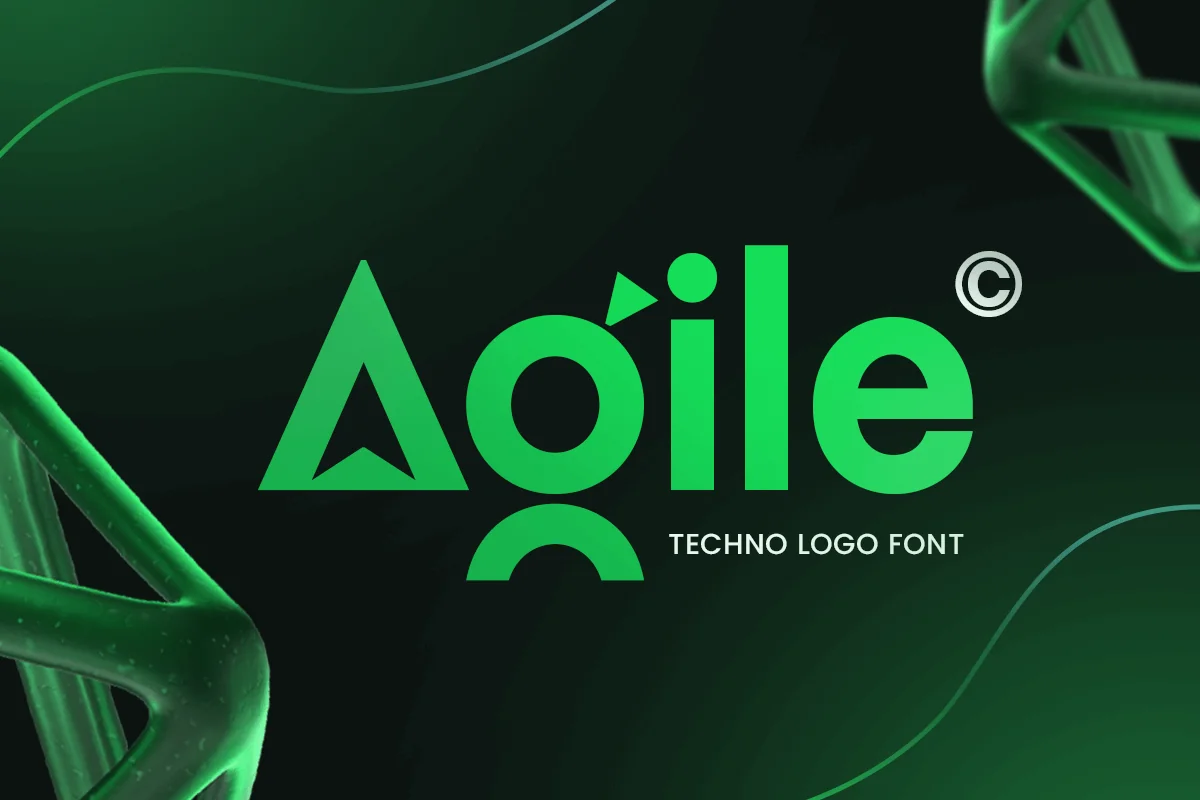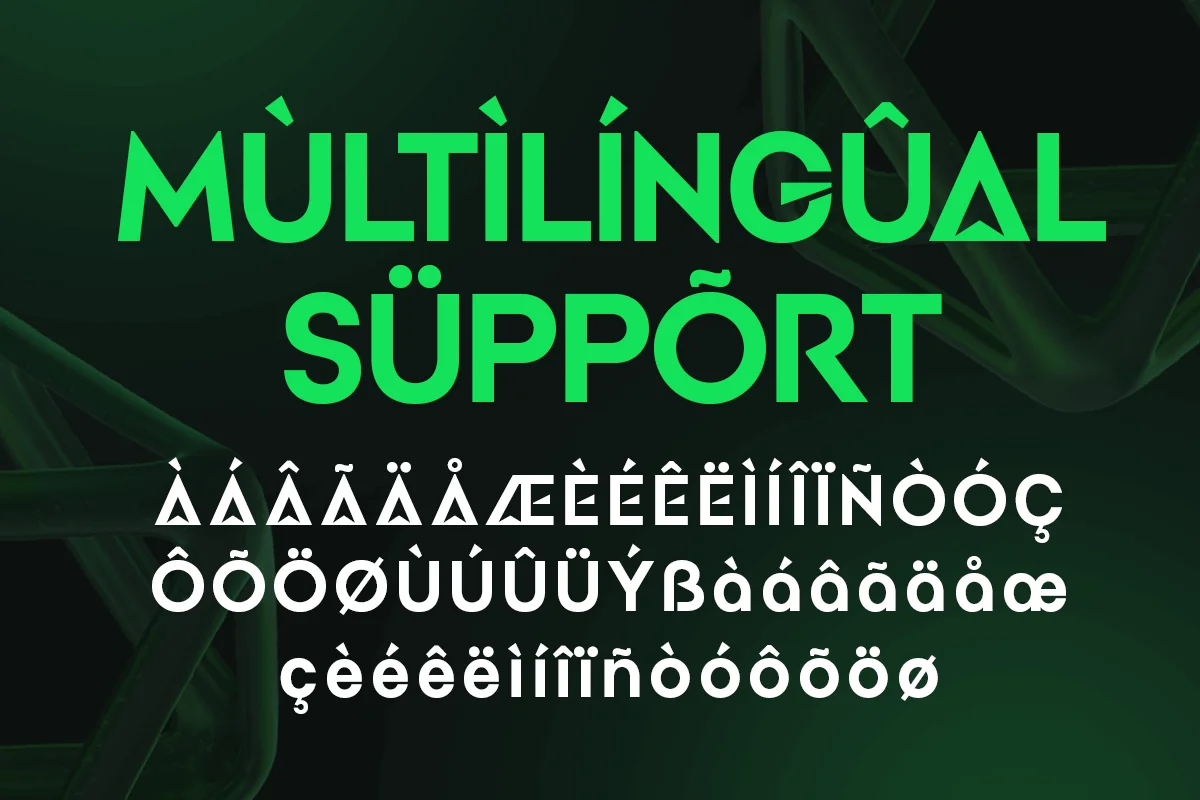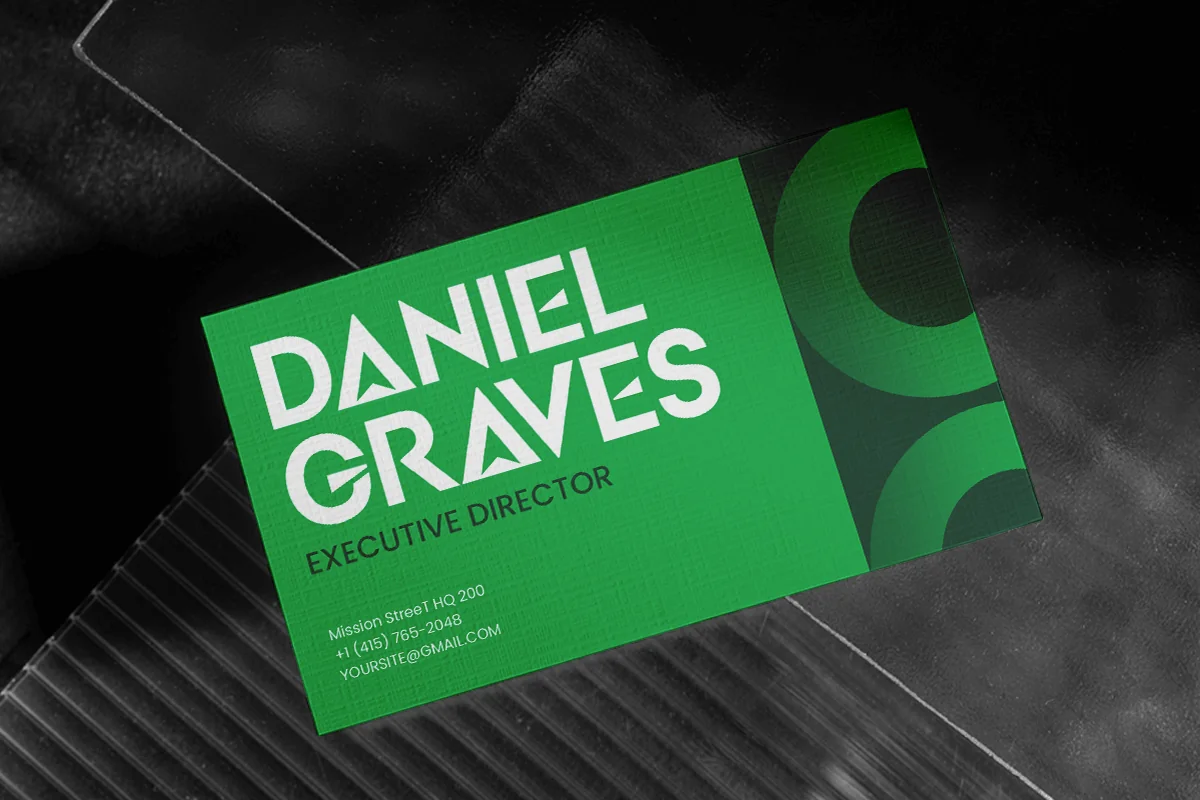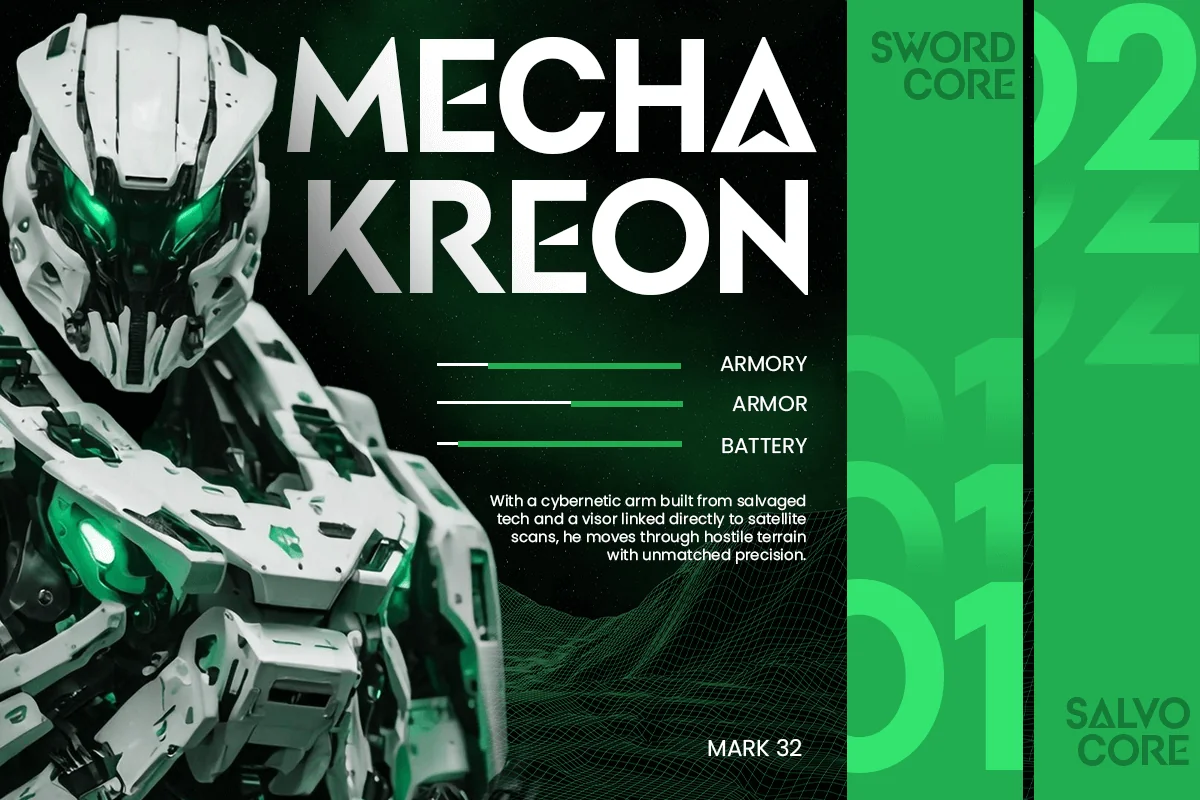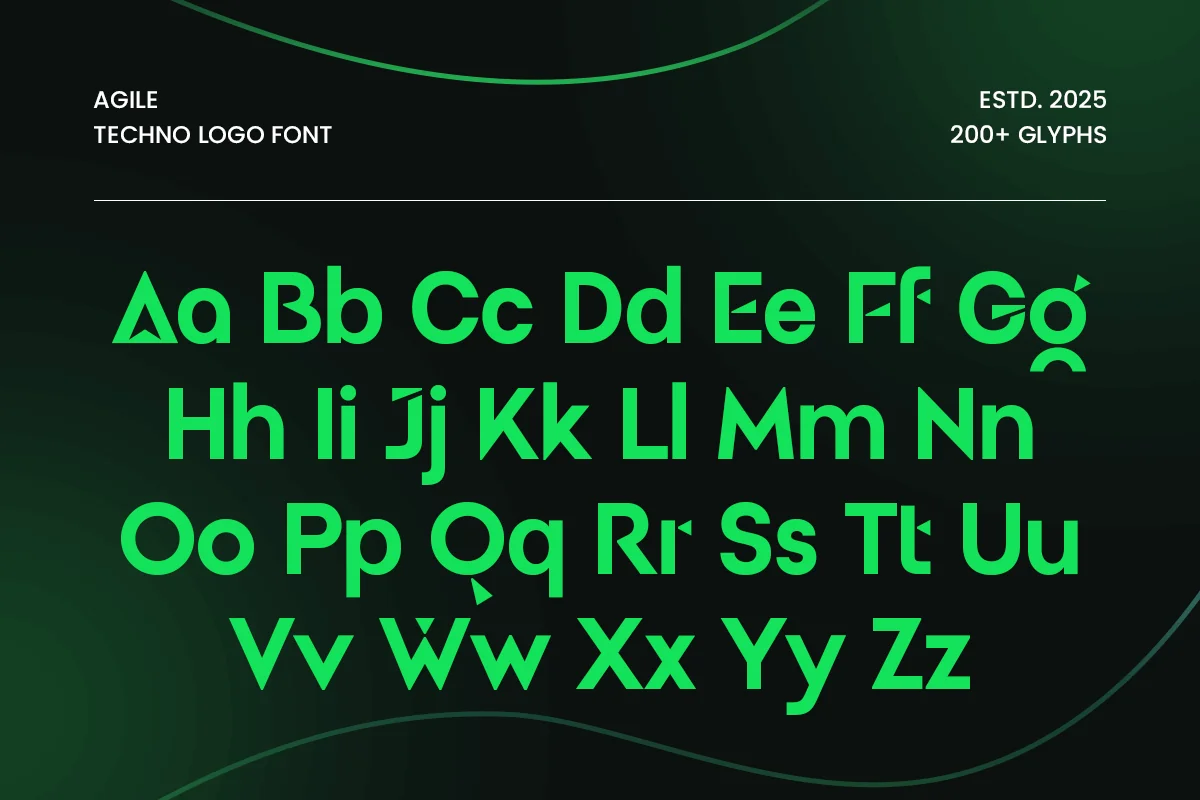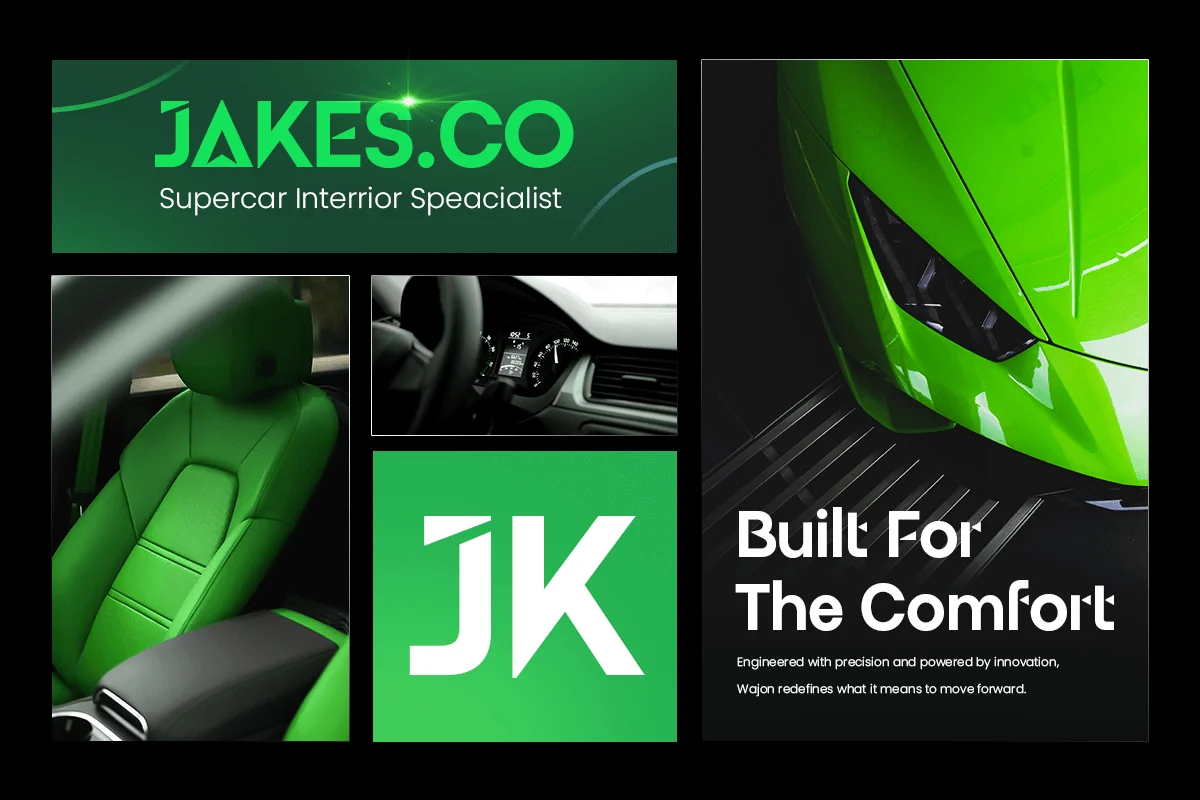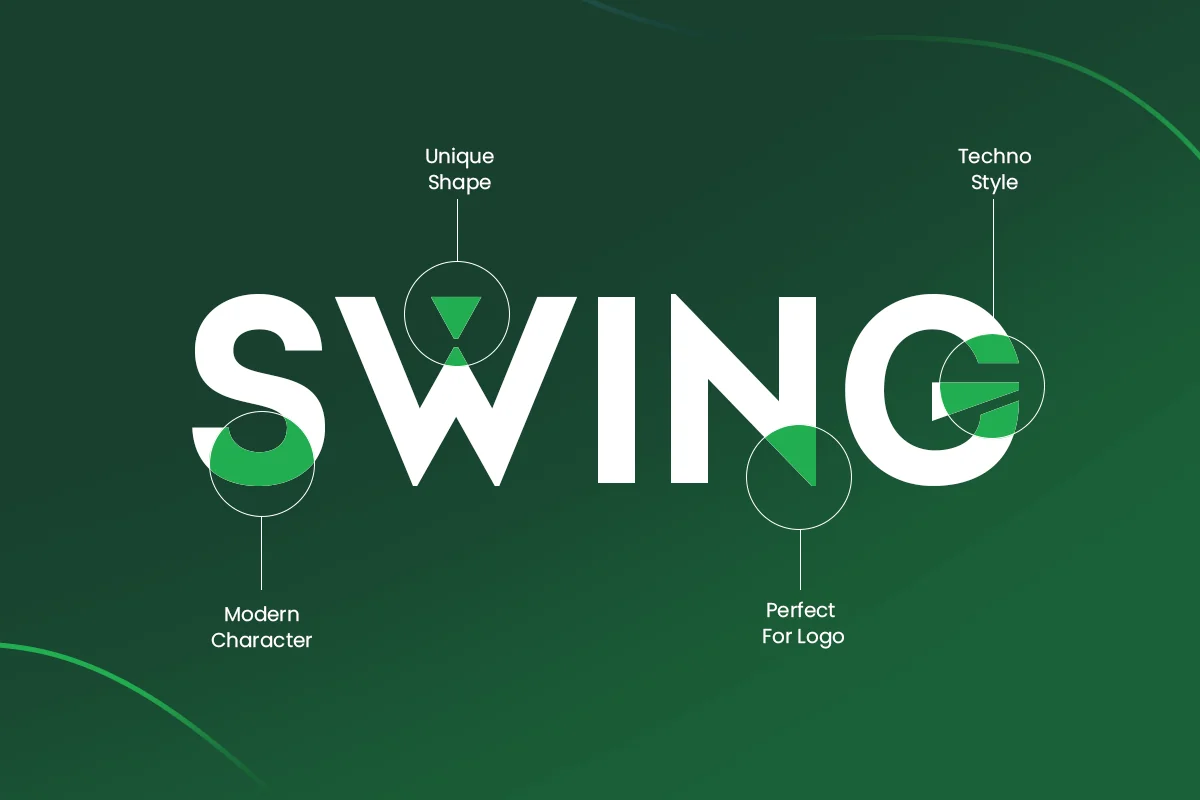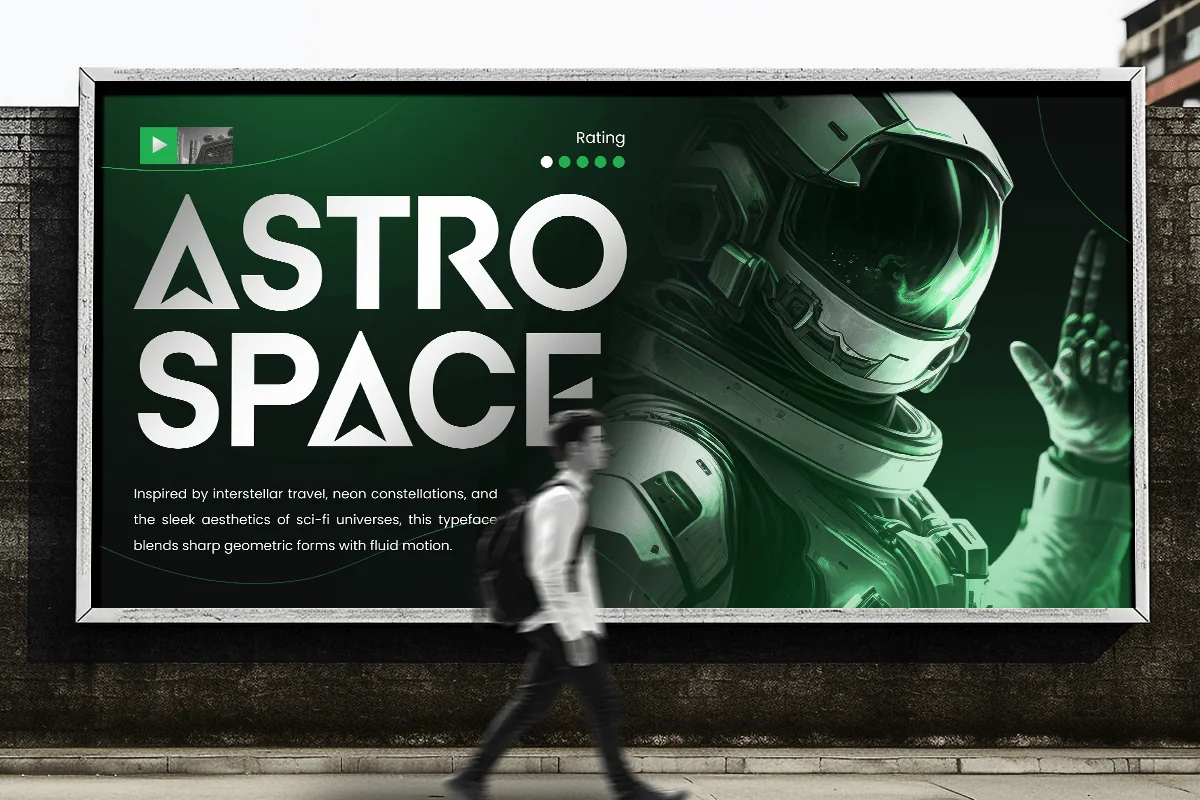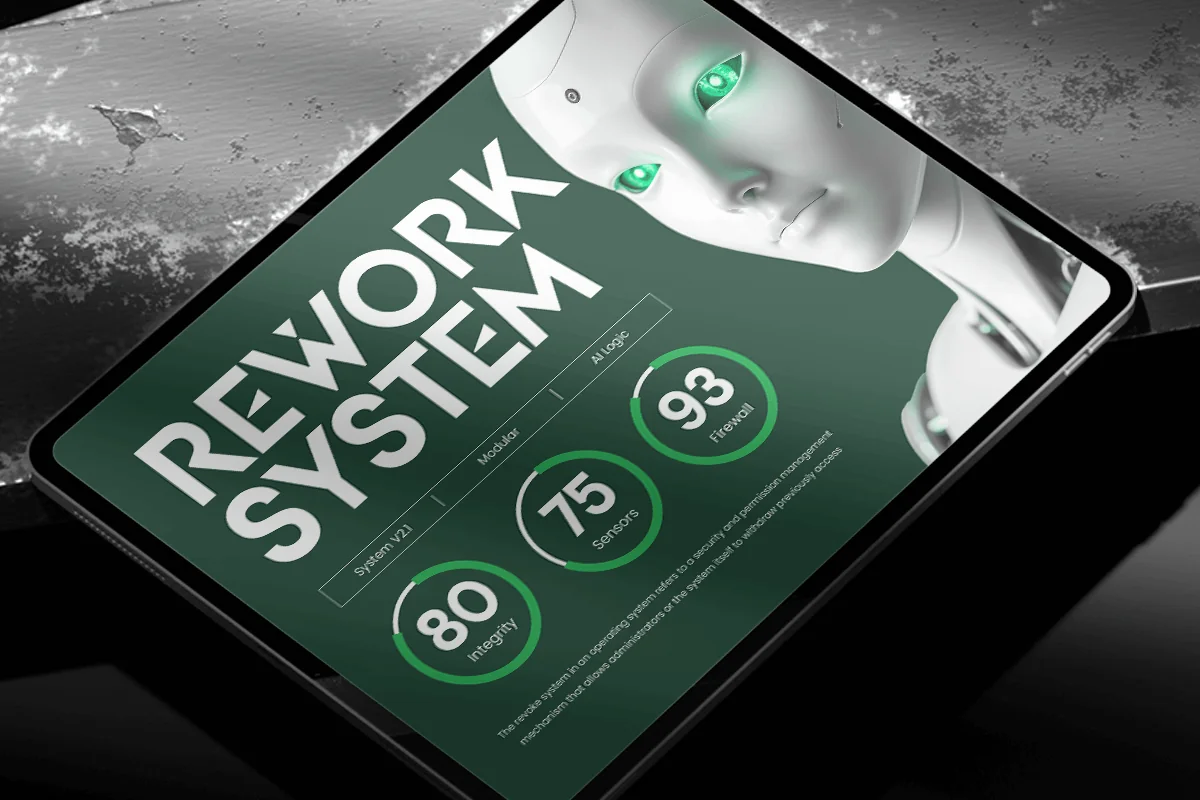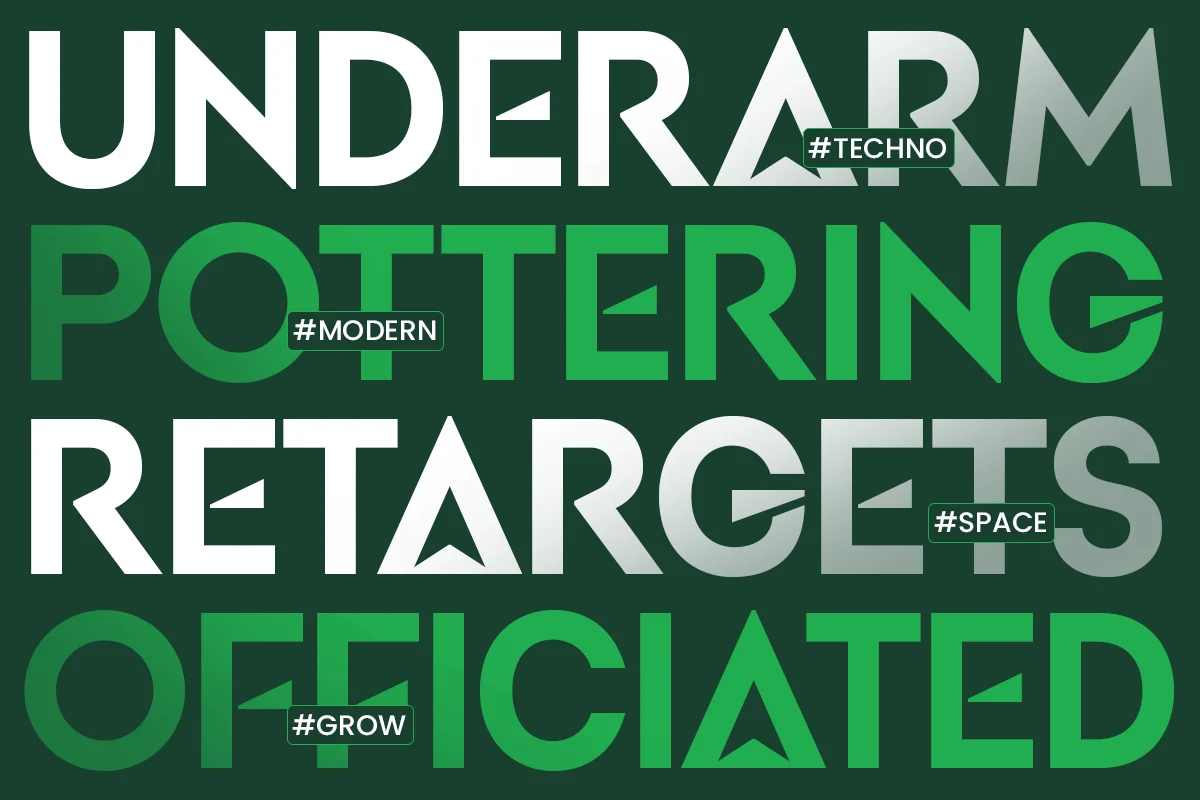
Agile – Techno Logo Font
Agile is a modern techno-style display font made to power up logos, gaming visuals, digital interfaces, and tech branding. With sharp angles, dynamic letterforms, and futuristic shapes, Agile gives your designs a fast-paced, cutting-edge feel—ideal for esports, startup tech, apps, and innovation-driven projects.
Its compact, impactful structure ensures legibility while delivering a bold identity. Whether used in large-scale titles or logo marks, Agile brings high energy and digital attitude that commands attention and reinforces modern aesthetics.
Speed up your brand’s visual language with Agile—a font designed for motion, momentum, and modern technology.
Agile Techno Logo Font Features:
- Futuristic Techno Style
- Great for Logos, Esports, Apps, and Tech Branding
- Punctuation, Numbers, and Symbols
Multilingual Characters available for:
Afrikaans, Albanian, Asu, Basque, Bemba, Bena, Breton, Chiga, Cornish, Dutch, English, Estonian, Filipino, Finnish, Friulian, Galician, German, Gusii, Indonesian, Irish, Italian, Kabuverdianu, Kalenjin, Kinyarwanda, Luo, Luxembourgish, Luyia, Machame, Makhuwa-Meetto, Makonde, Malagasy, Manx, Morisyen, North Ndebele, Nyankole, Oromo, Portuguese, Quechua, Romansh, Rombo, Rundi, Rwa, Samburu, Sango, Sangu, Scottish Gaelic, Sena, Shambala, Shona, Soga, Somali, Spanish, Swahili, Swedish, Swiss.